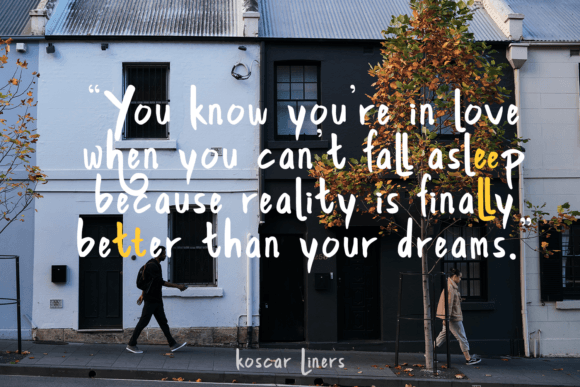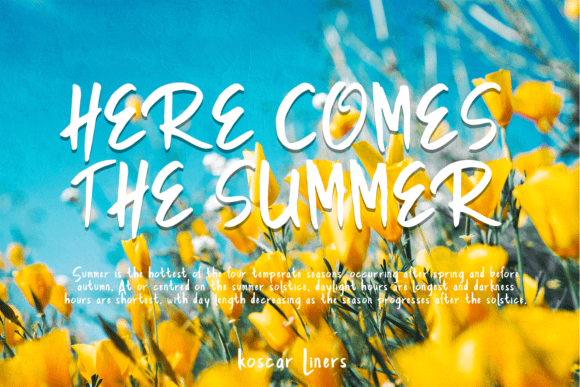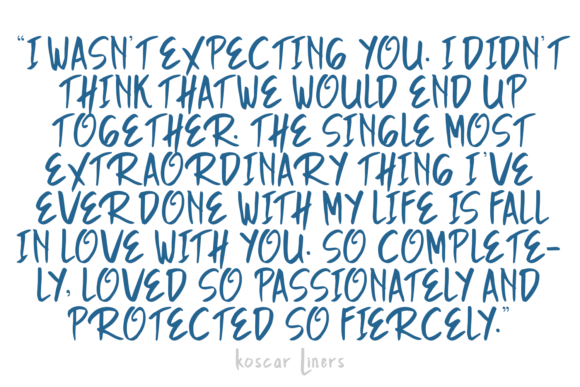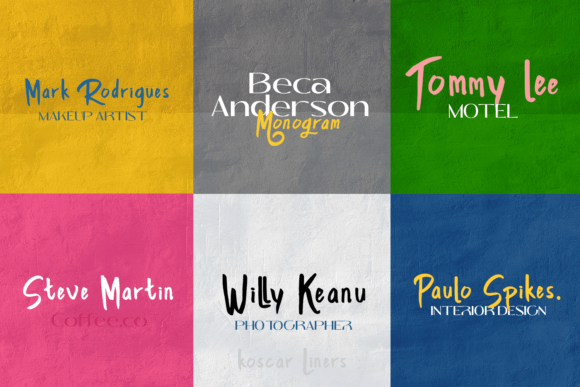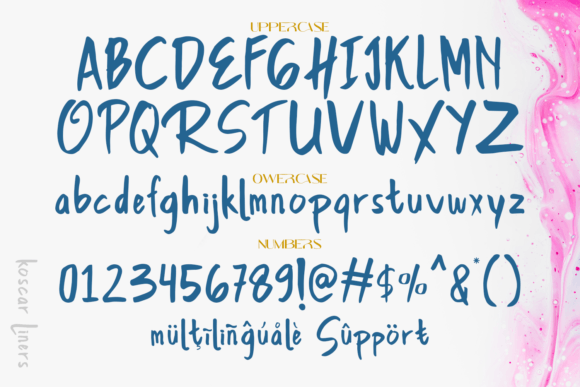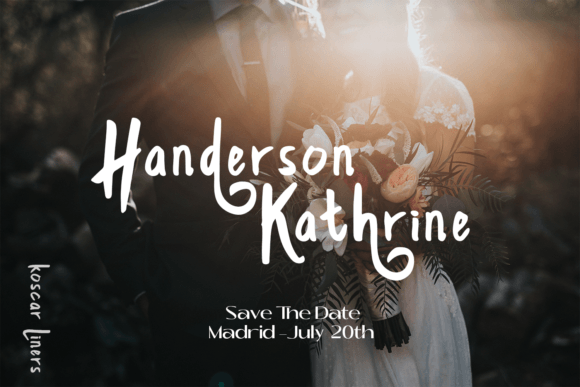
Introduction to Koscar Liners Font
Have you ever found yourself stuck in the creative process, searching for the perfect font to bring your vision to life? I know I have. As designers, we’ve all been there – staring at a blank page, struggling to find the right words, and ultimately, the right font. It’s in these moments that we discover the true value of a well-crafted, high-quality font like Koscar Liners Font.
With its realistic handwritten style, Koscar Liners Font is perfect for a wide range of creative projects, from book titles and product packaging to invitations and quotes. Whether you’re working on a personal project or a commercial design, this font is sure to elevate your work and leave a lasting impression.
Key Features of Koscar Liners Font
- Unique, creative design ideal for various projects such as graphic design, digital art, and typography.
- High-quality font with transparent background, making it perfect for use on any background.
- Perfect design resource for creative projects, including logos, branding, and typography-based art.
Honest Review: Koscar Liners Font
I recently stumbled upon the Koscar Liners Font while searching for a free download for a creative project, and I must say I’m impressed. This font is a great addition to any design resource library, offering high quality lines that are perfect for adding a touch of elegance to your work.
What works well about Koscar Liners Font is its versatility. You can use it for a variety of creative projects, from typography-heavy designs to more subtle backgrounds. The transparent background makes it easy to layer over other elements, giving you a lot of flexibility in your design process. ✨
Here are some of the key features I like about Koscar Liners Font:
- High quality lines that are perfect for adding texture and interest to your designs
- Transparent background makes it easy to layer over other elements
- Perfect for creative projects, from typography-heavy designs to more subtle backgrounds
One limitation I’ve noticed is that the font is a bit limited in its character set. While it includes a wide range of punctuation and special characters, it’s not as comprehensive as some other fonts. ⚠️
Overall, I’m really impressed with Koscar Liners Font. It’s a great addition to any design resource library, and I’m excited to see how it will work in my future projects. If you’re looking for a high quality font for your creative project, I would definitely recommend checking it out.
Koscar Liners Font is ideal for various creative projects, such as:
- Designing social media graphics and posts.
- Creating presentations and slides.
- Developing branding materials and logos.
- Designing posters and flyers.
Alternatives to Koscar Liners Font
The Great Vibes Font is a high-quality, handwritten font ideal for creative projects requiring a touch of elegance. It’s perfect for designing posters, invitations, and other materials that need a personal touch. Great Vibes Font is a great alternative to Koscar Liners Font for projects that require a more sophisticated look.
Compared to Koscar Liners Font, Great Vibes Font has a more refined and delicate feel, making it suitable for a wider range of applications.
The Alex Brush Font is a beautiful, calligraphic font that’s perfect for designers seeking a high-quality, transparent background. It’s ideal for creating logos, typography, and other design elements that require a sense of sophistication. Alex Brush Font is a great alternative to Koscar Liners Font for projects that demand a touch of luxury.